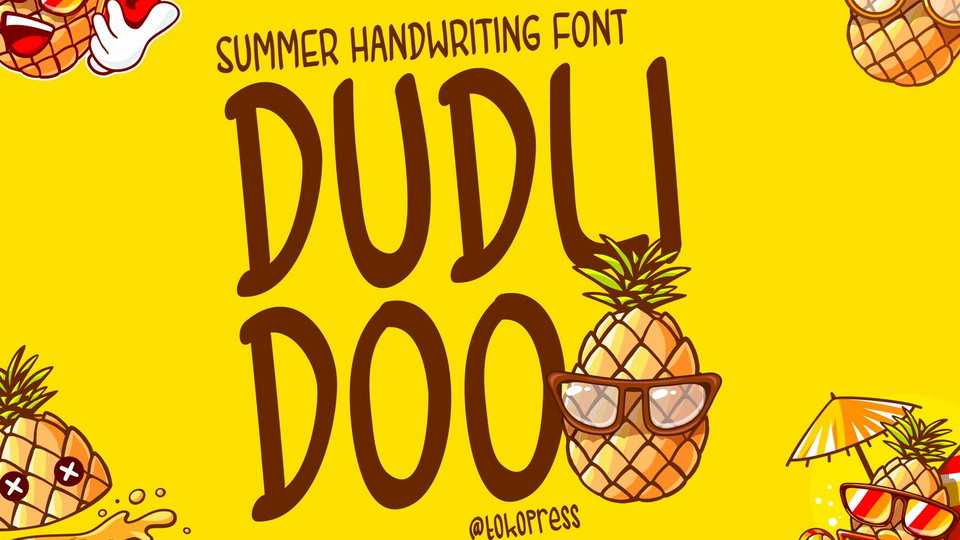
Download Dudlidoo font, a kids handwriting typeface. The freshness and joy are what children world. And Doodlidoo is all about that. It brings a smile all over the place.